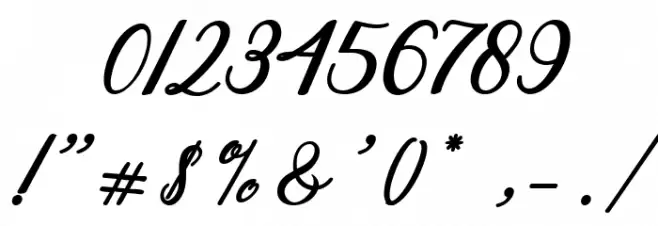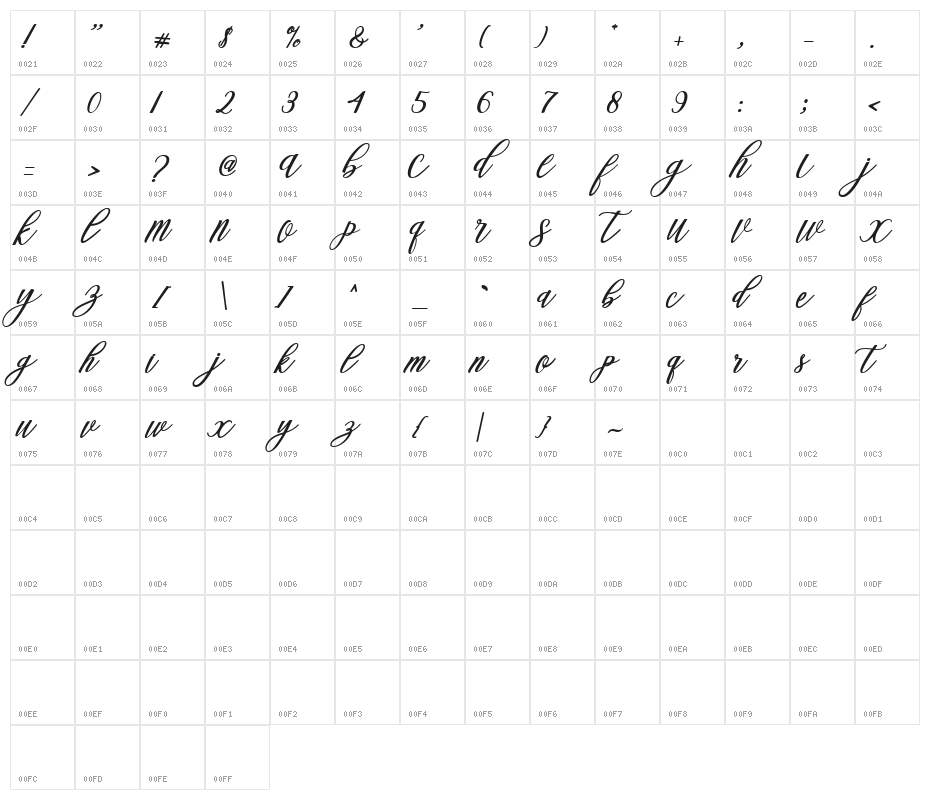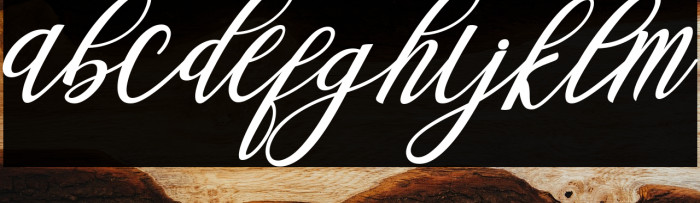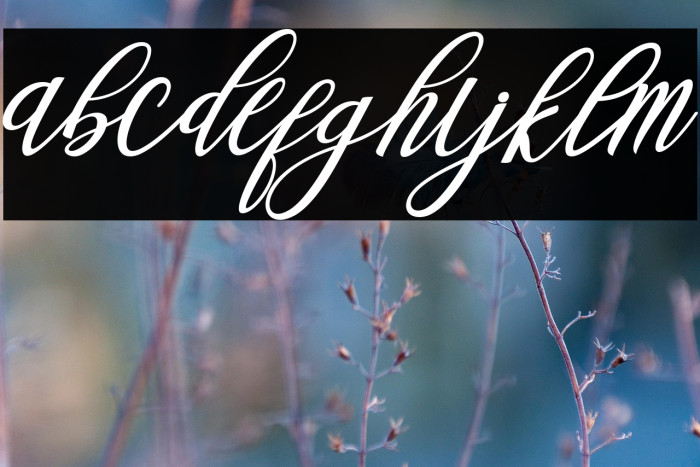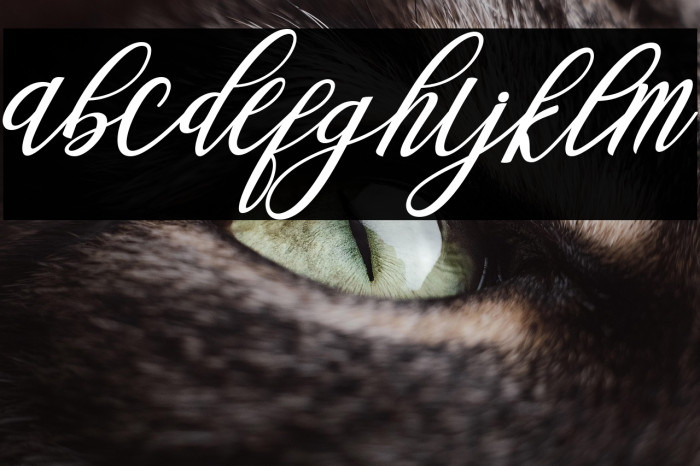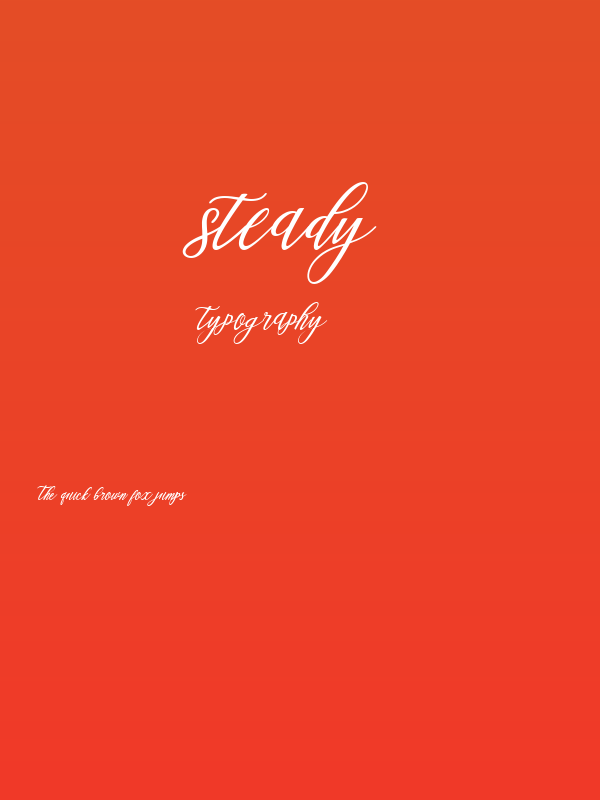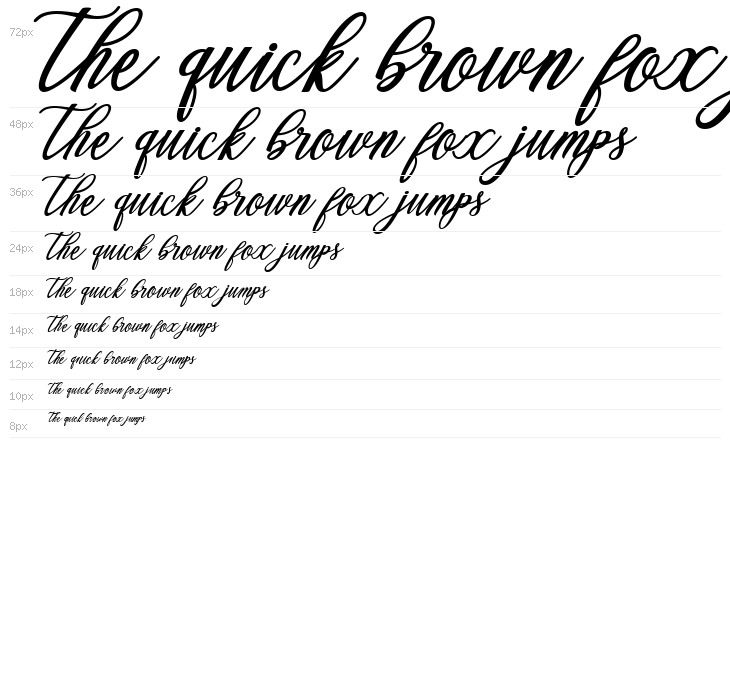
Steady Font
Steady Description
This font features an elegant and flowing script style, characterized by its cursive, handwritten appearance. The letters are interconnected with smooth, sweeping strokes that give it a sense of fluidity and grace. The uppercase and lowercase letters maintain a consistent style, with the uppercase letters being slightly larger and more ornate. The numerals and special characters follow the same flowing design, ensuring a cohesive look across all characters. The font's overall appearance is sophisticated and stylish, making it suitable for projects that require a touch of elegance.
| Proposed Projects | Ideal for wedding invitations, greeting cards, branding, and elegant logos. |